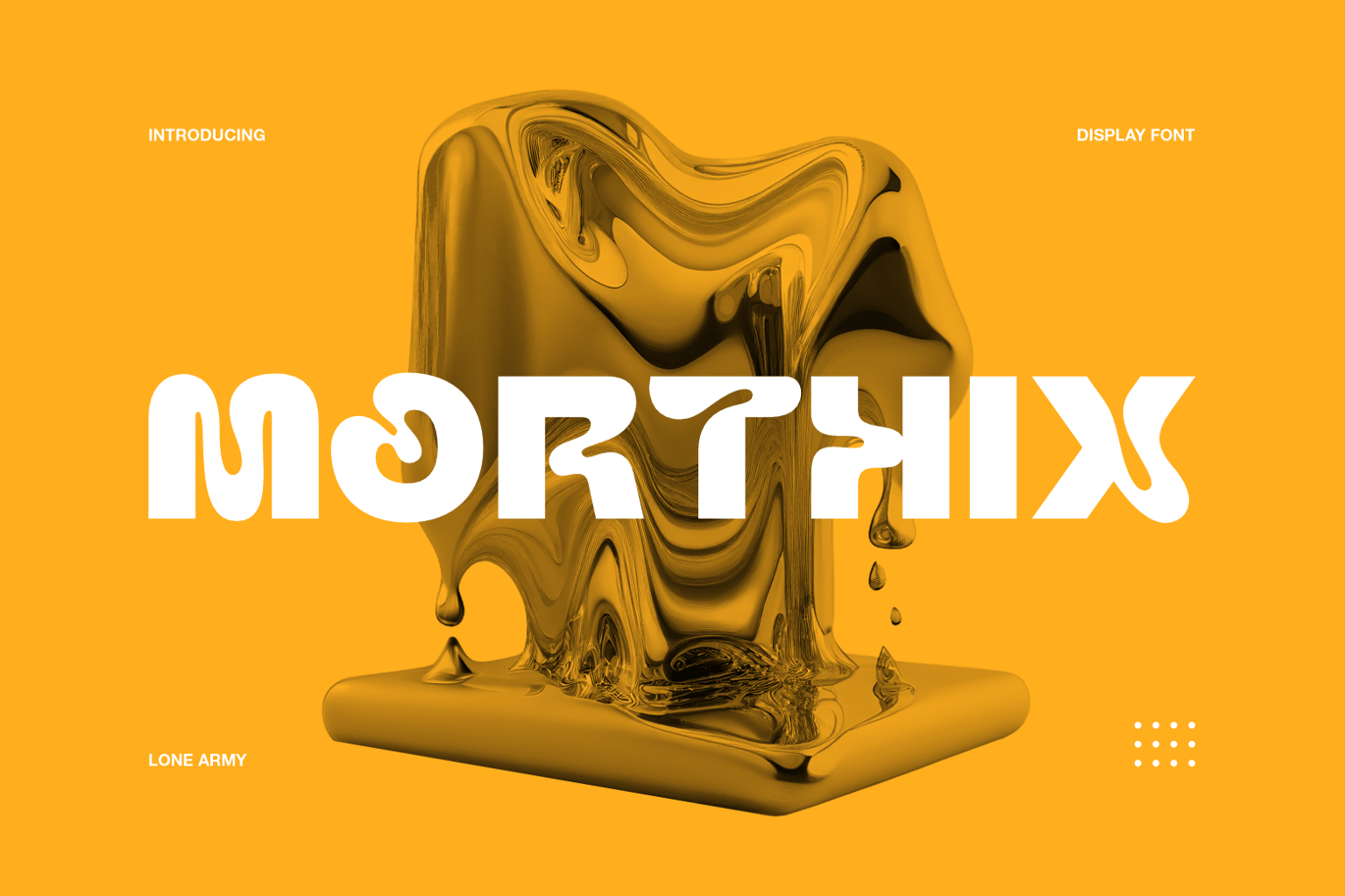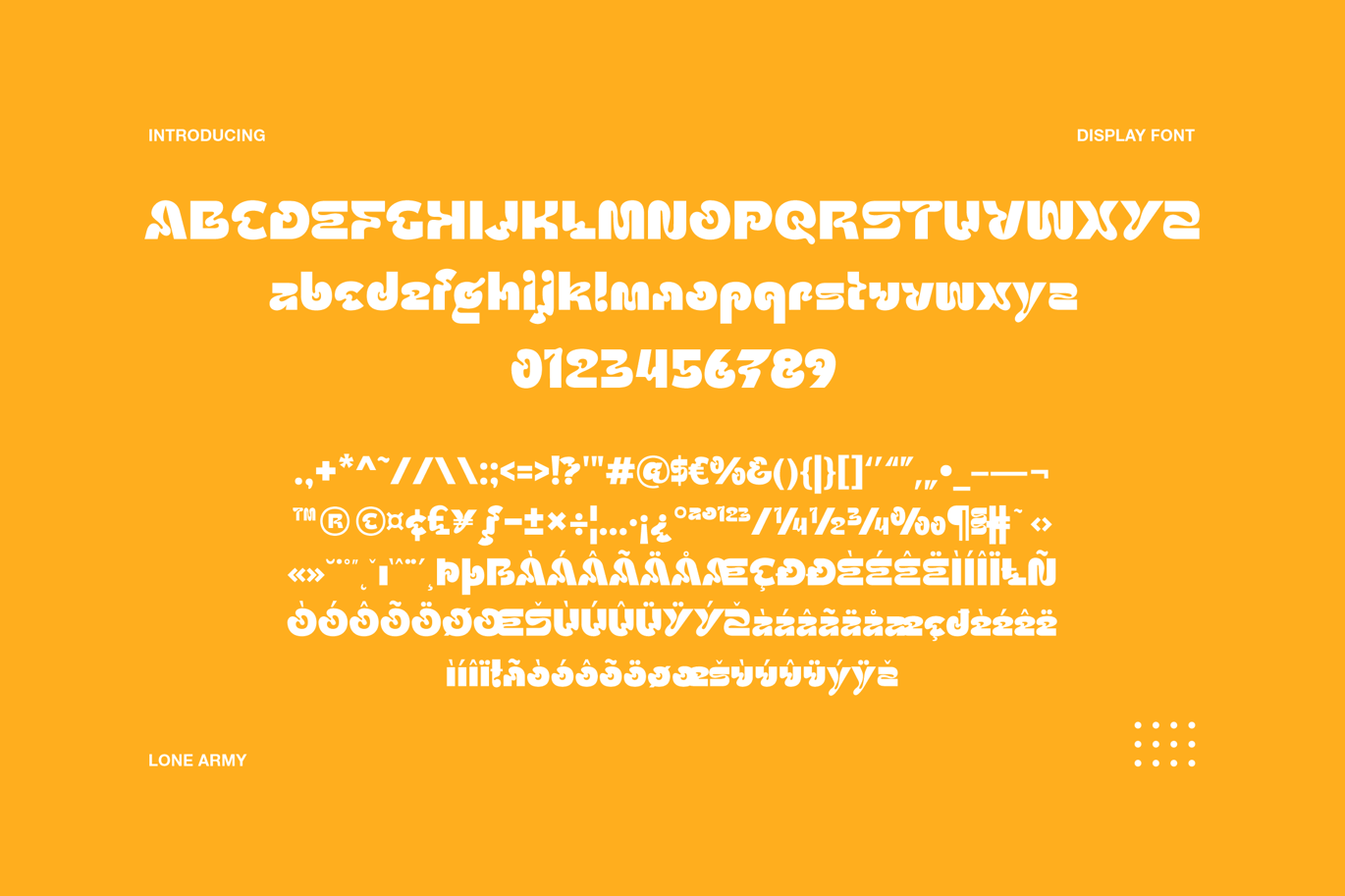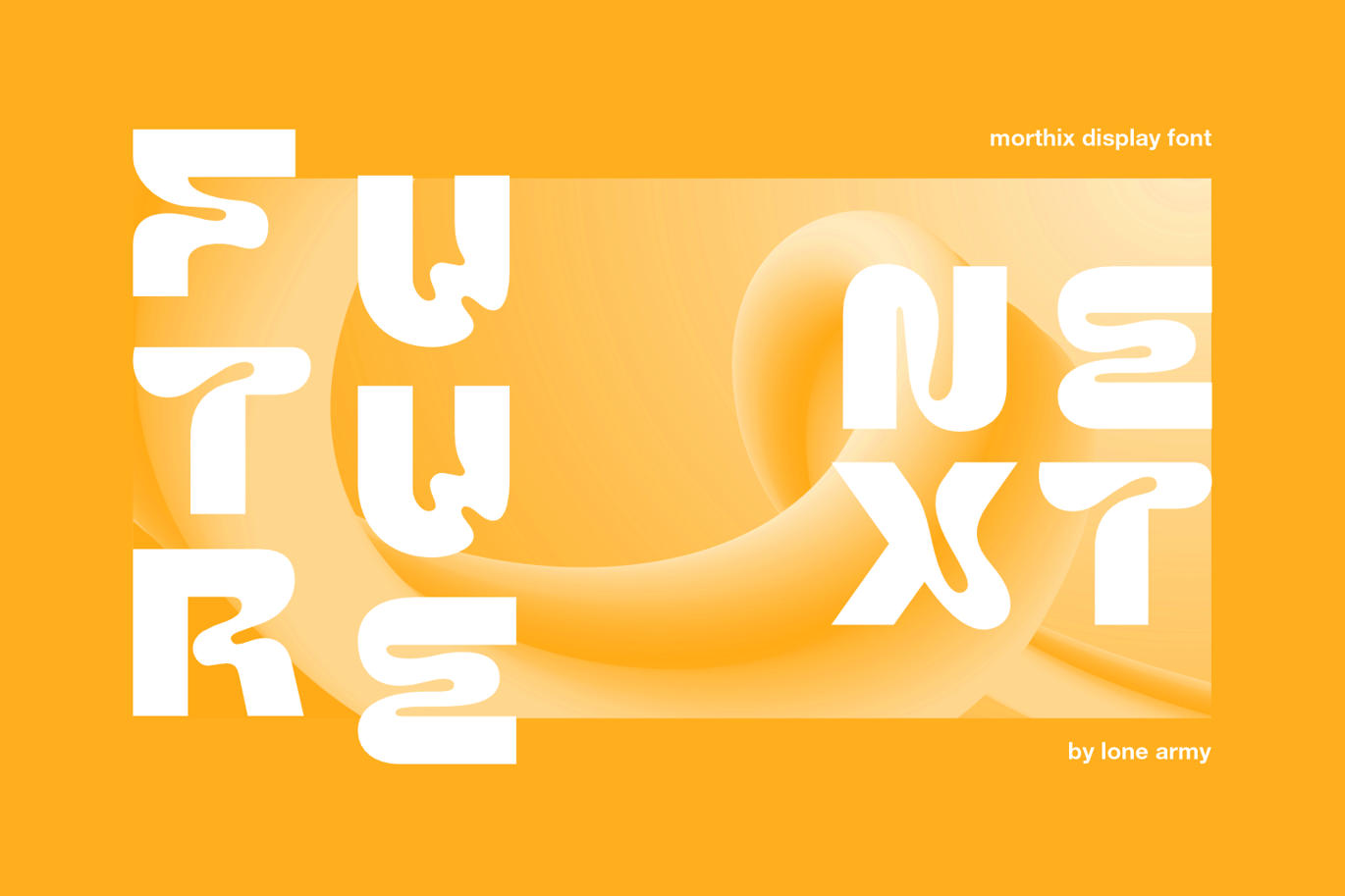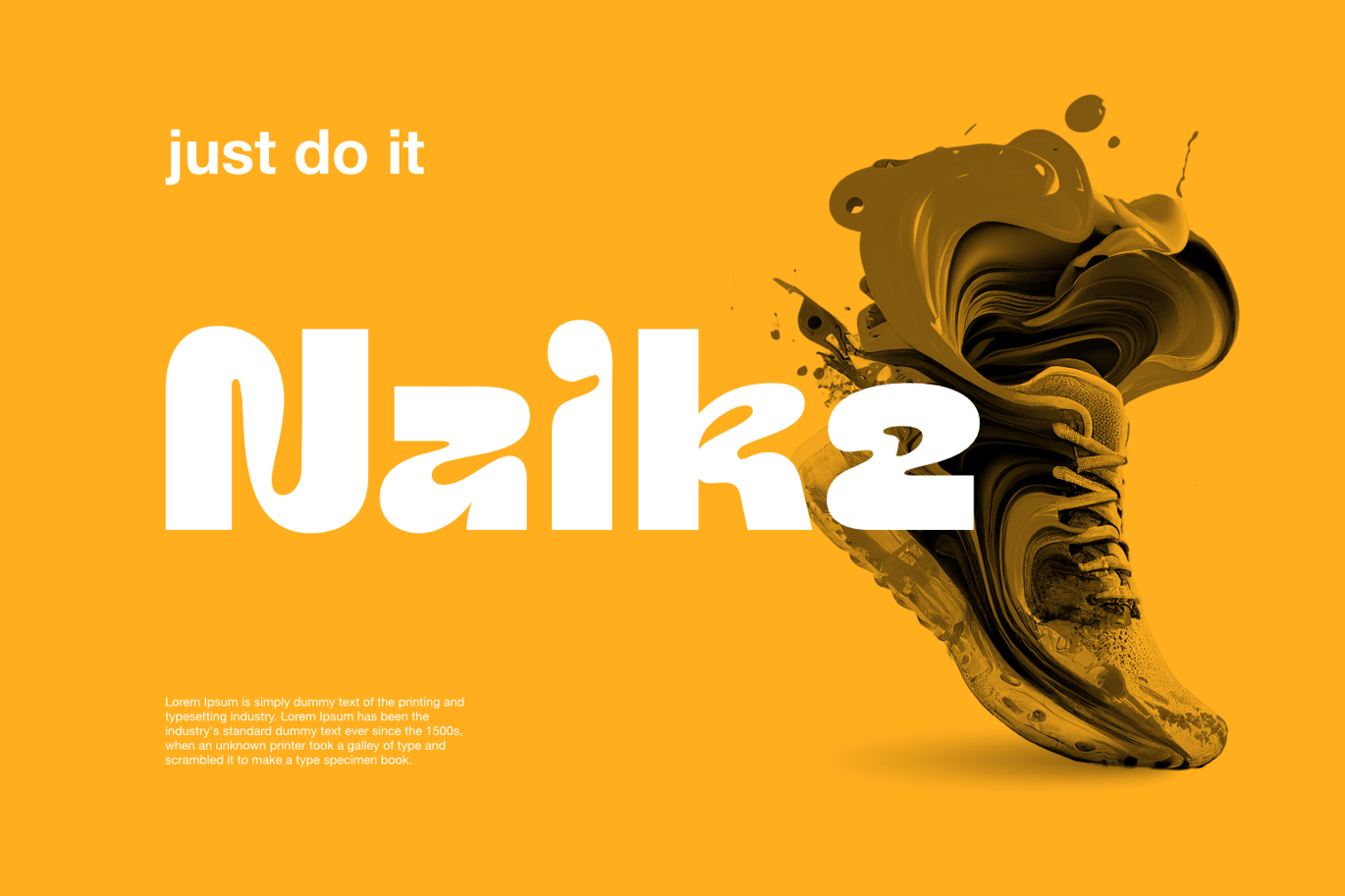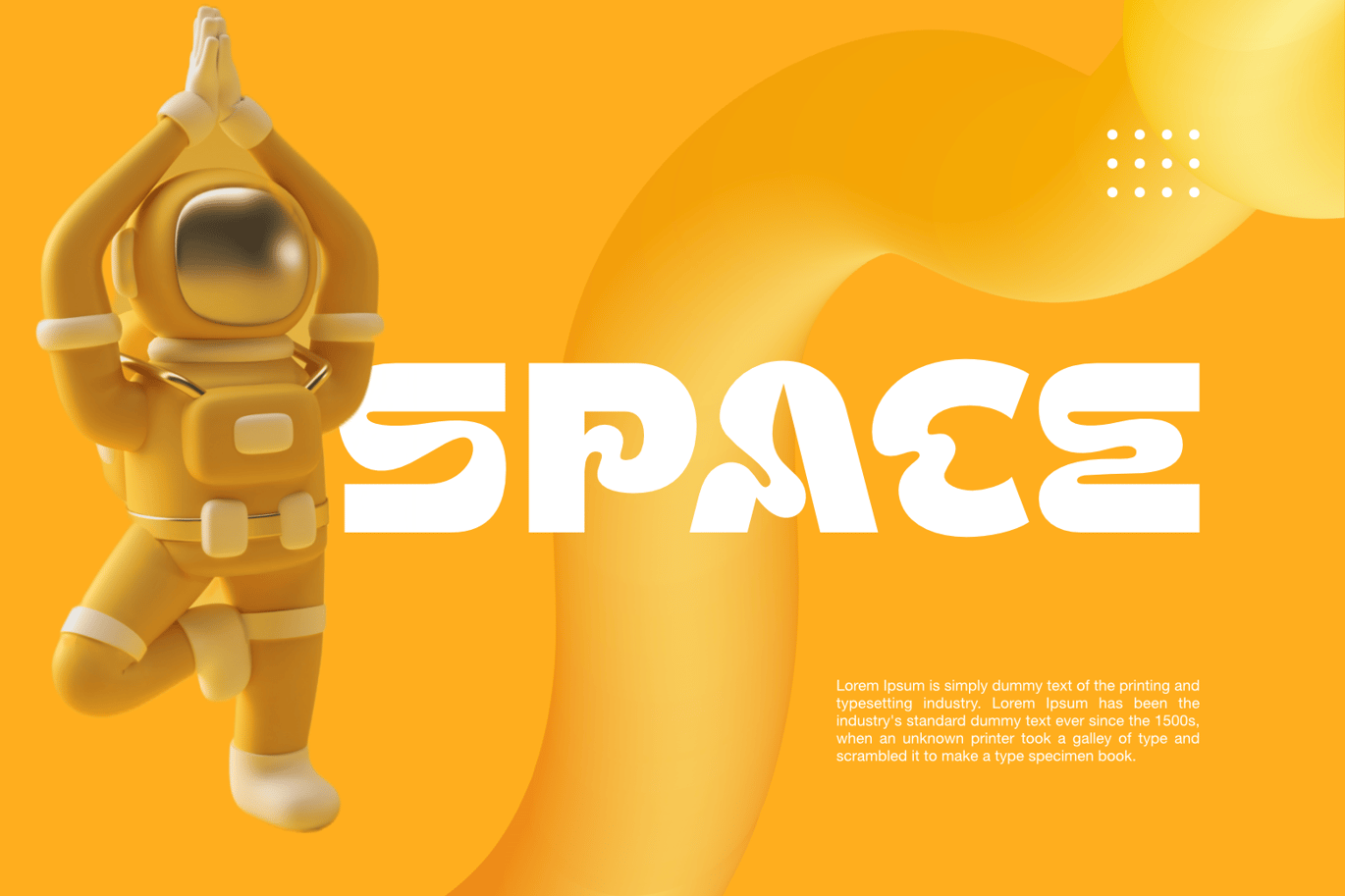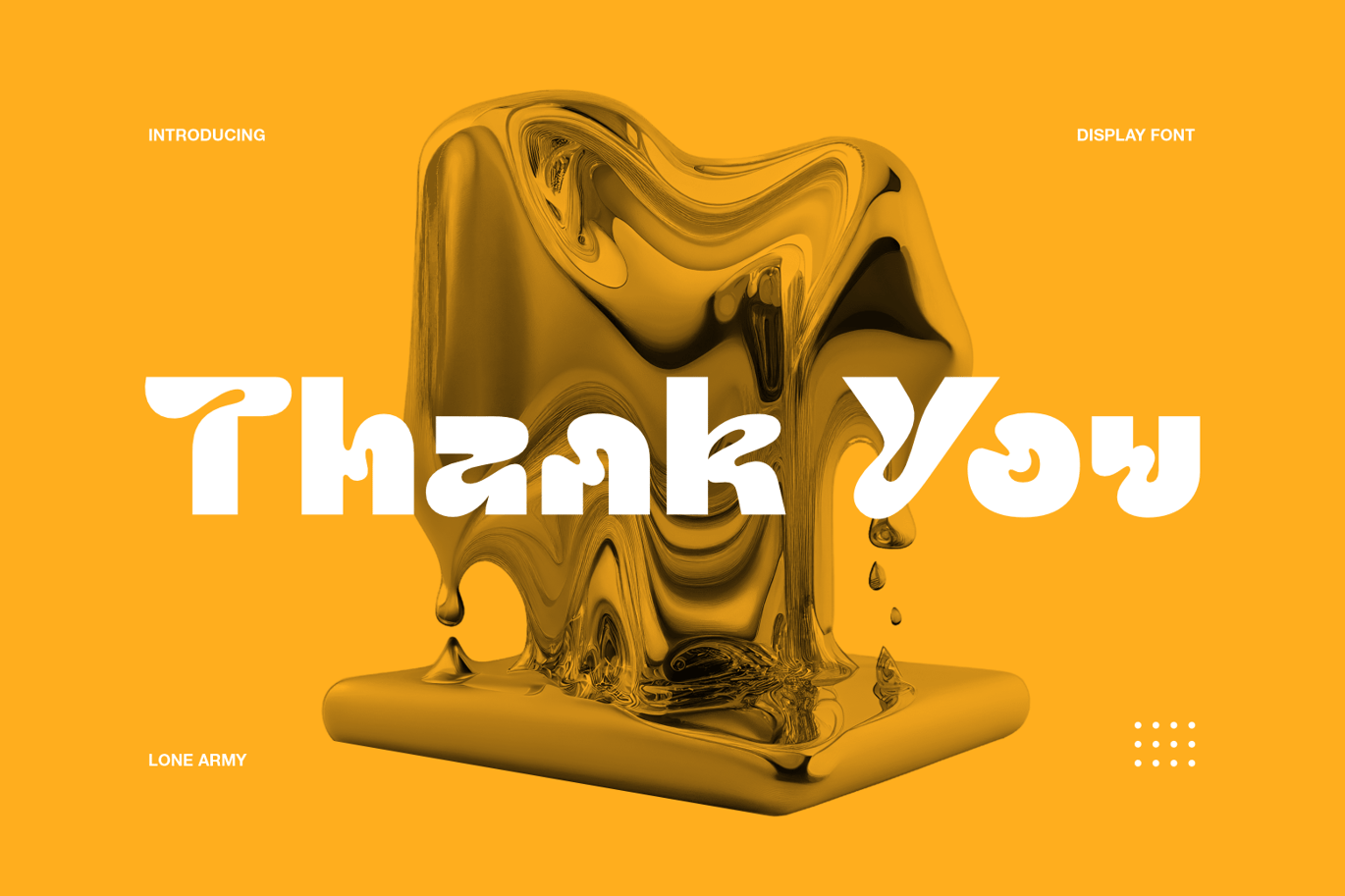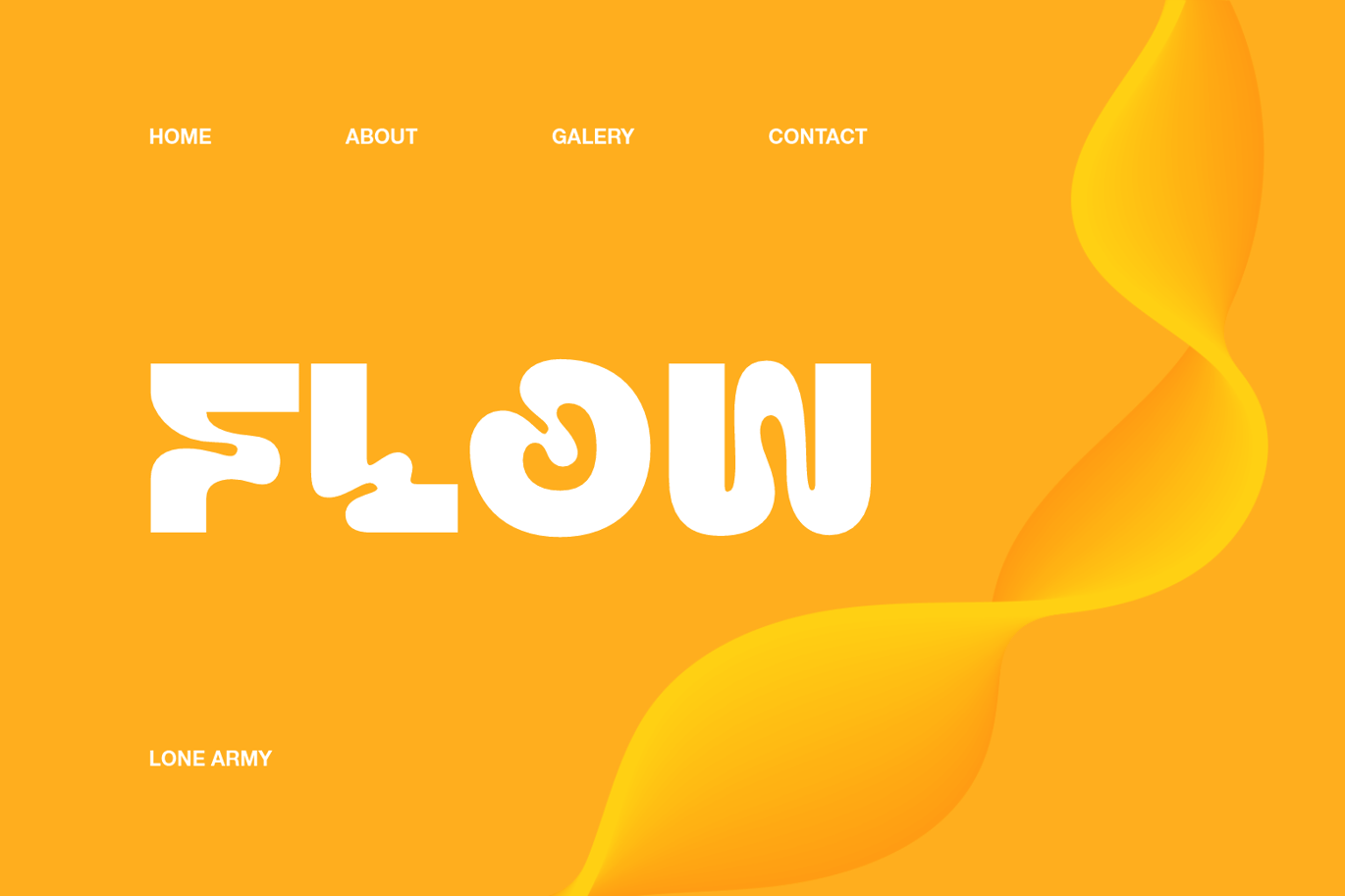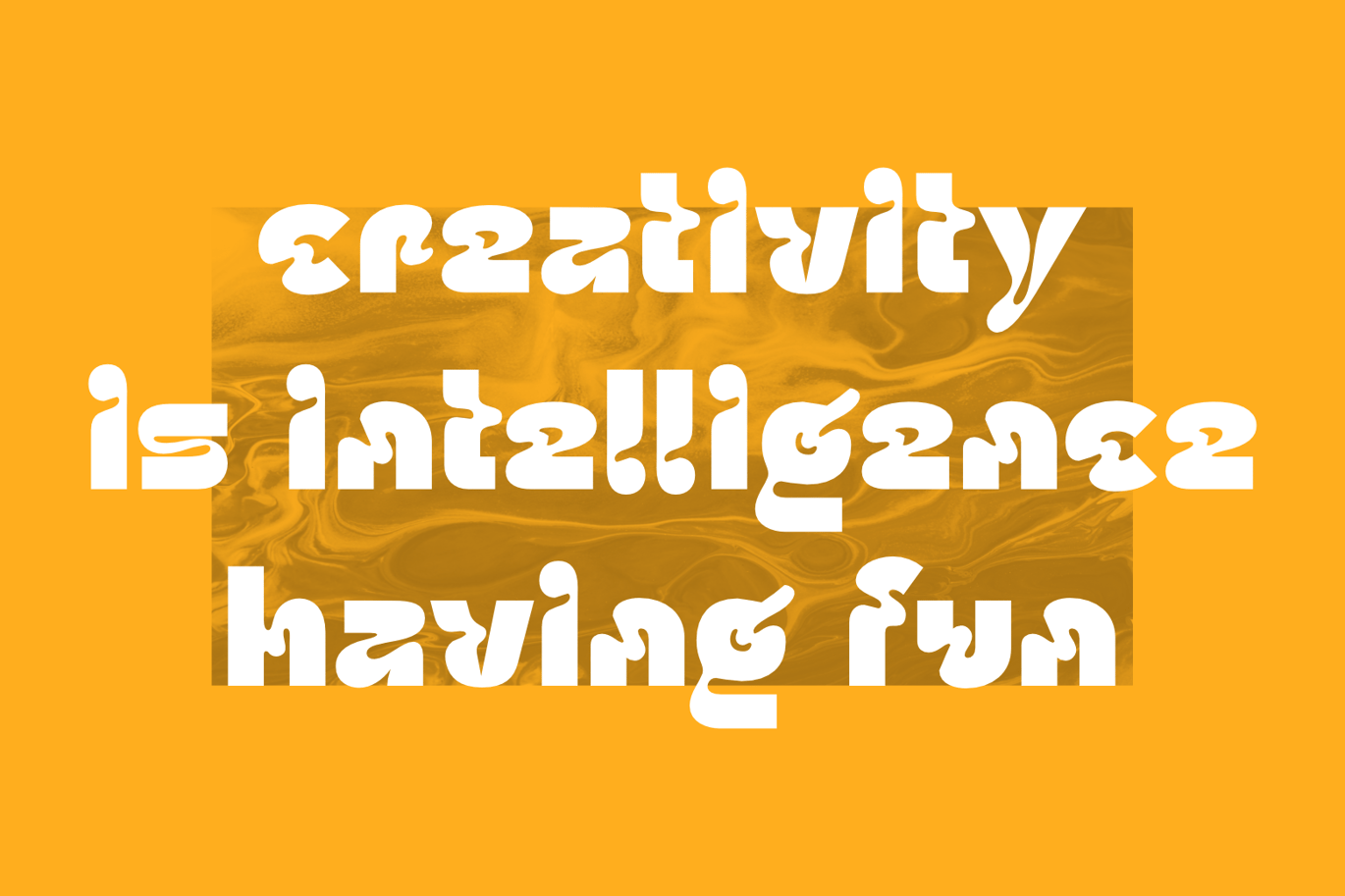
MORTHIX – Liquid Font
Introducing my latest font MORTHIX, which features fluid and flowy curves reminiscent of liquid. This font’s contemporary style makes it perfect for use in headers and futuristic designs, adding a creative touch that’s sure to catch the eye. Its elegant and modern appearance creates a striking impression, making it ideal for designs that need to stand out. With this font, you can create a unique and eye-catching look that’s perfect for any project. Please Enjoy